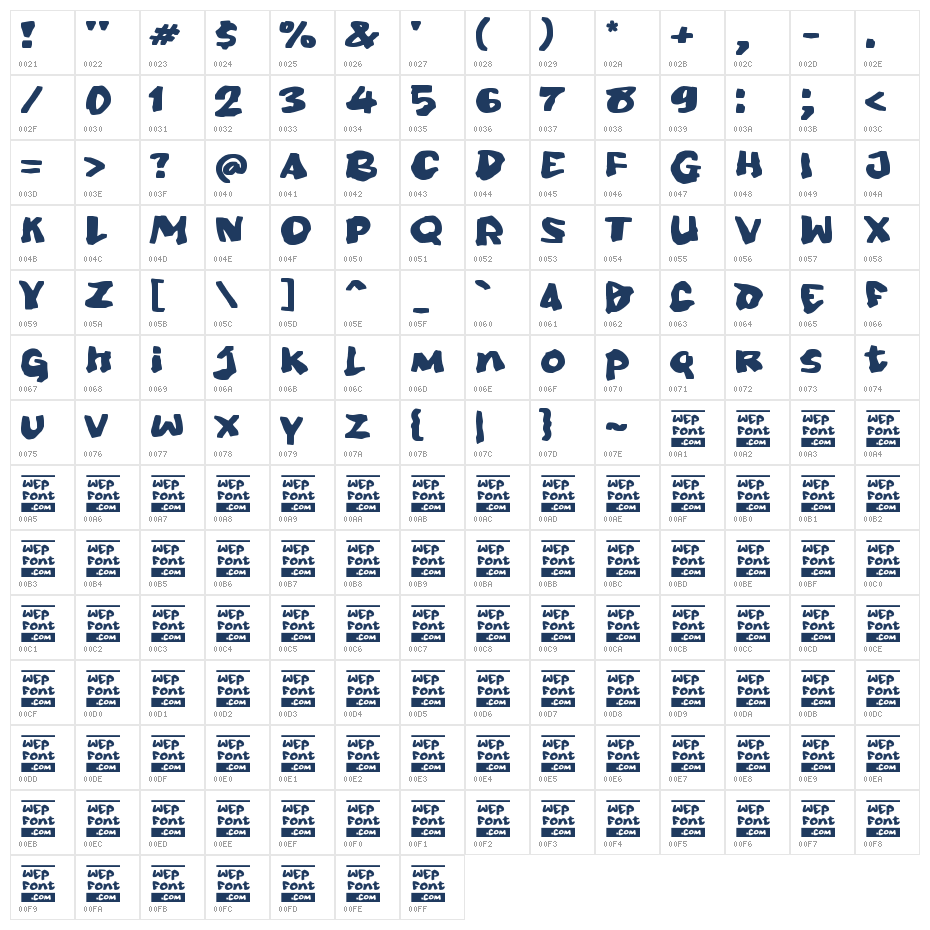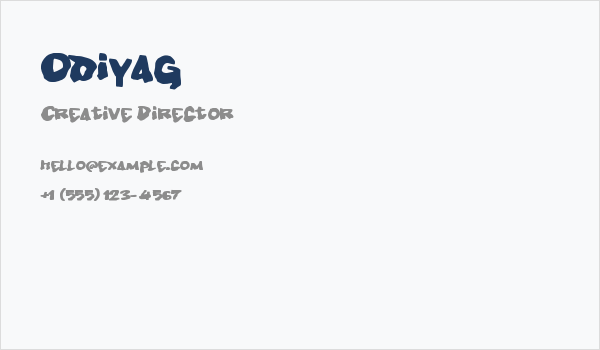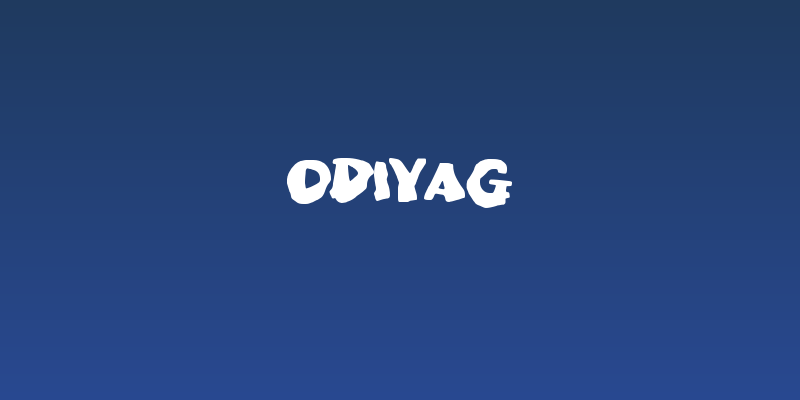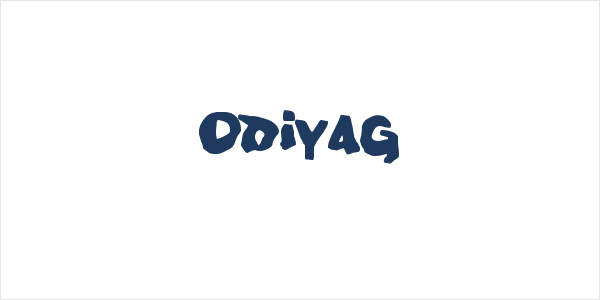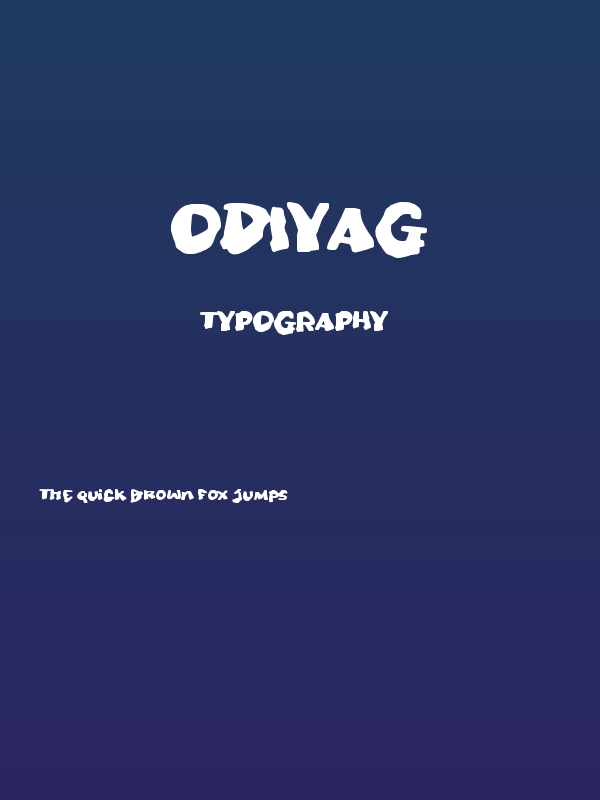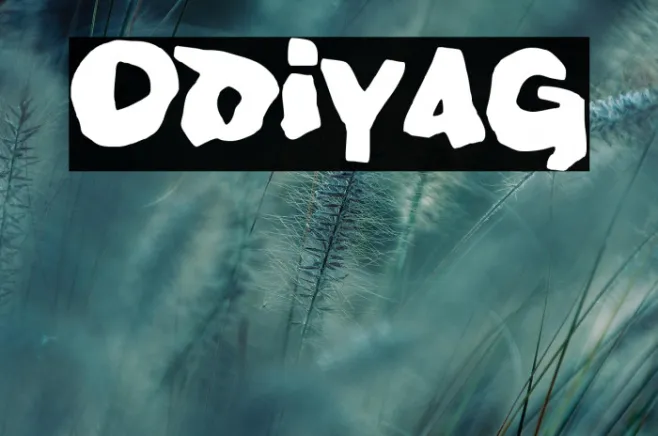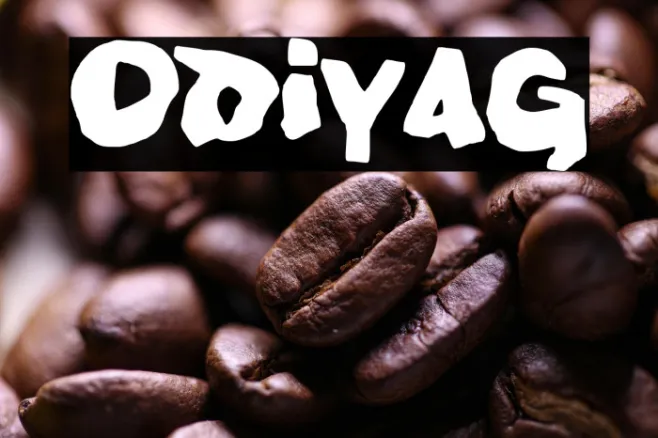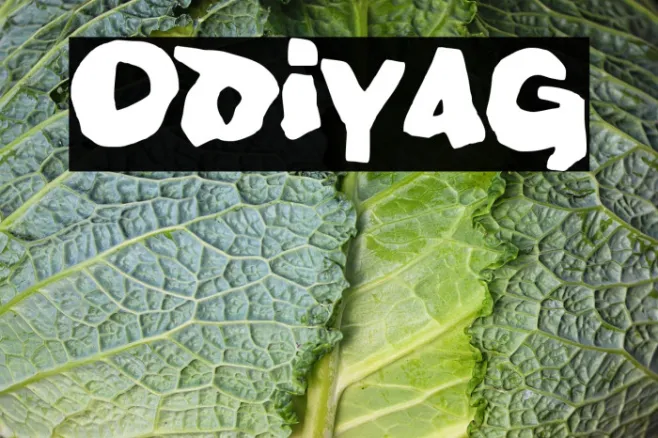
Odiyag Font
Odiyag Description
Bold, playful, and chunky display font with irregular, hand-drawn style characters.
| Overall Style | Playful, Hand-drawn, Casual |
| Use Case | Headlines, Posters, Logos, Children's products |